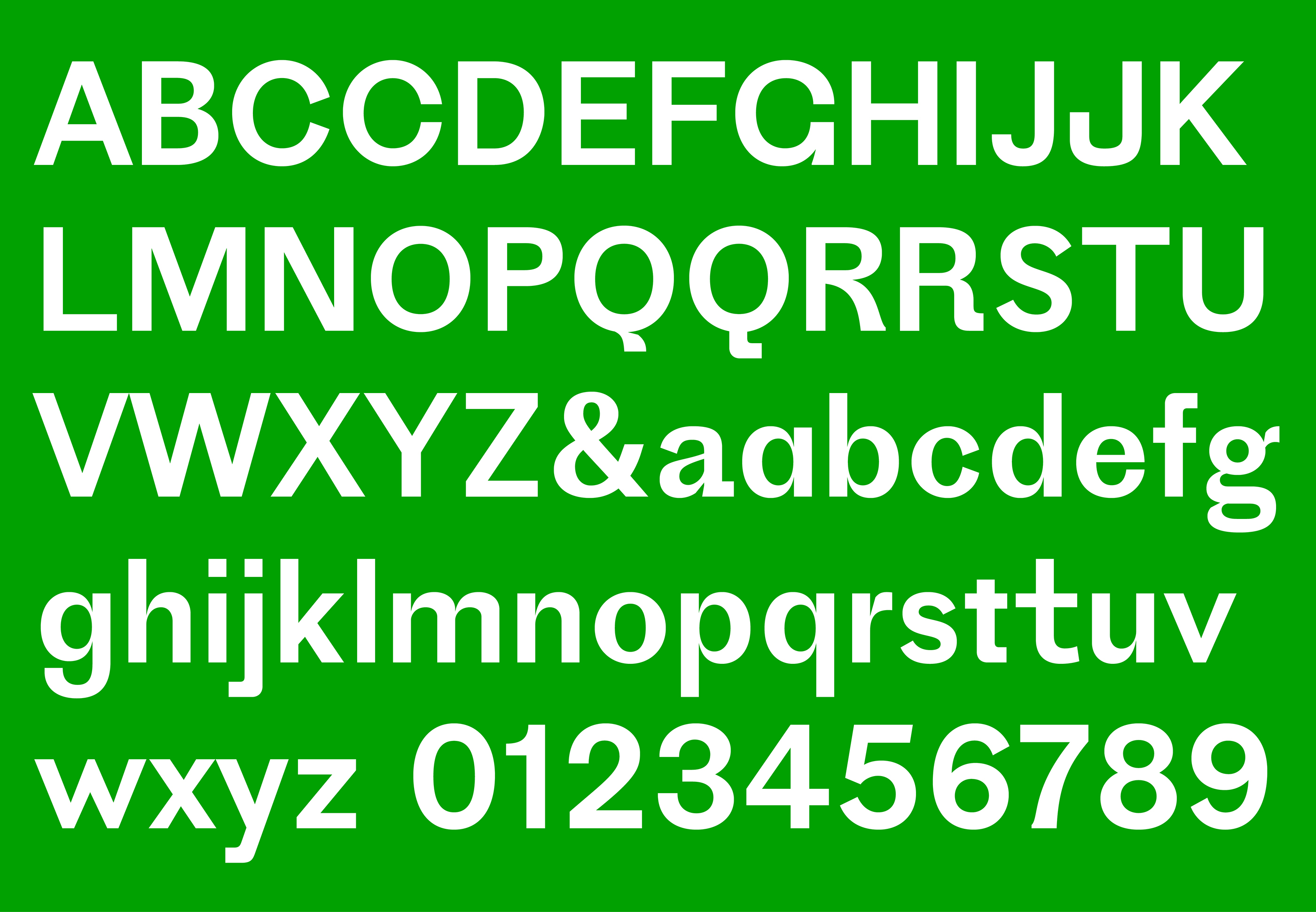
Proto Grotesk
Over the last hundred years or so, utilitarian typefaces have shed most of their quirks and eccentricities on the way to becoming more versatile and universal. That makes some sense, but there’s no reason type can’t be both steadfast and peculiar. Drawing from an early German sans serif used for catalog text, Proto Grotesk revives an era when clunkiness was a virtue. Its pedigree is varied, vacillating between Egyptian and Modern, round and edged, even sans and slab. Despite these contradictions, its posture is nothing less than sturdy and forthright. Proto Grotesk is strange but steady.